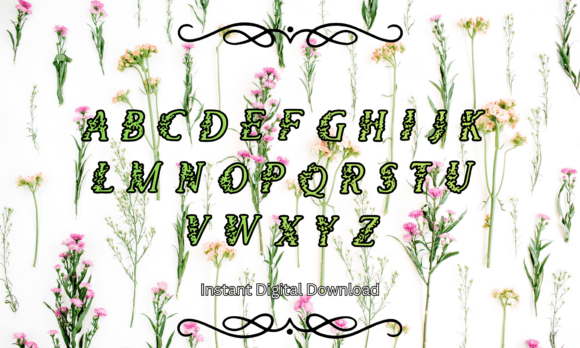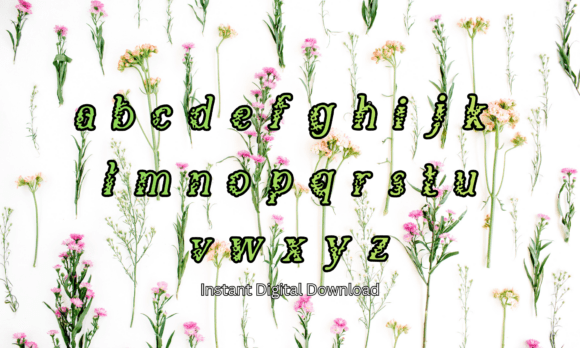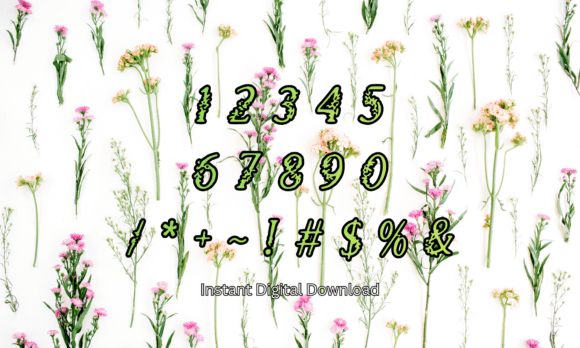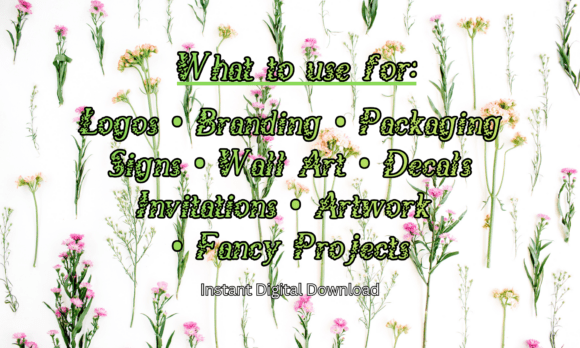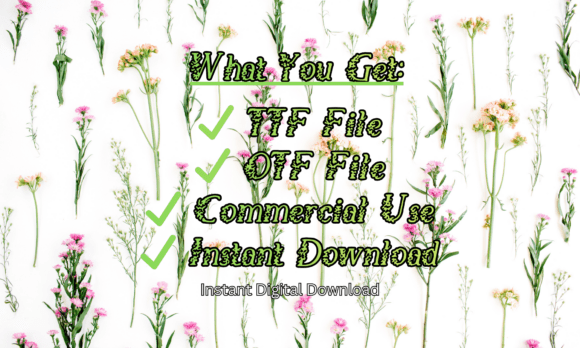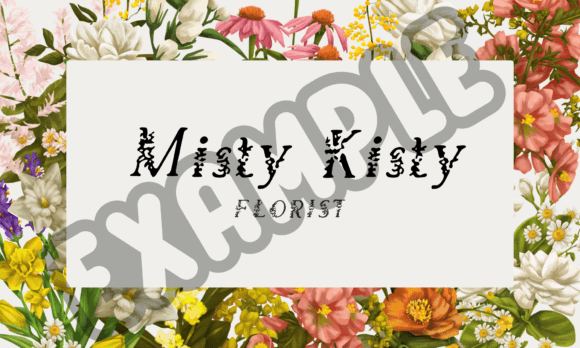
Add a Touch of Nature-Inspired Elegance with Floral Ornament Font
Are you looking for a font that can add a touch of elegance and whimsy to your designs? Look no further than Floral Ornament, a beautiful decorative display font that is perfect for a variety of projects. Inspired by pressed flowers, botanical prints, and romantic stationery, this font is sure to bring a soft, artistic, and romantic feel to your designs.
What is Floral Ornament Font?
Floral Ornament is a decorative display font that is adorned with organic, floral character details. The font is designed to evoke the feeling of nature and elegance, making it perfect for projects that need a touch of sophistication. With its delicate and intricate details, Floral Ornament is sure to add a touch of whimsy and romance to your designs.
Floral Ornament is a versatile font that can be used for a variety of projects, including:
- Wedding invitations & stationery: Add a touch of elegance and romance to your wedding invitations and stationery with Floral Ornament.
- Botanical logos & branding: Create a beautiful and unique logo for your botanical business with Floral Ornament.
- Wall art & prints: Add a touch of nature-inspired elegance to your wall art and prints with Floral Ornament.
- Stickers & decals: Create beautiful and delicate stickers and decals with Floral Ornament.
- Scrapbooking & journaling: Add a touch of whimsy and romance to your scrapbooking and journaling projects with Floral Ornament.
- Packaging & labels: Create beautiful and elegant packaging and labels with Floral Ornament.
- Social media graphics: Add a touch of nature-inspired elegance to your social media graphics with Floral Ornament.
Font Includes
Floral Ornament includes:
- Uppercase letters
- Lowercase letters
- Numbers
- Punctuation & symbols
Style & Theme
Floral Ornament is a beautiful and elegant font that is perfect for projects that need a touch of nature-inspired elegance. The font has a:
- Floral style
- Botanical theme
- Ornamental feel
- Elegant and decorative display style
If you’re looking for a font that can add a touch of nature-inspired elegance to your designs, look no further than Floral Ornament. With its delicate and intricate details, this font is sure to bring a soft, artistic, and romantic feel to your projects. Perfect for a variety of projects, including wedding invitations, botanical logos, and wall art, Floral Ornament is a versatile font that is sure to become a favorite in your design arsenal.